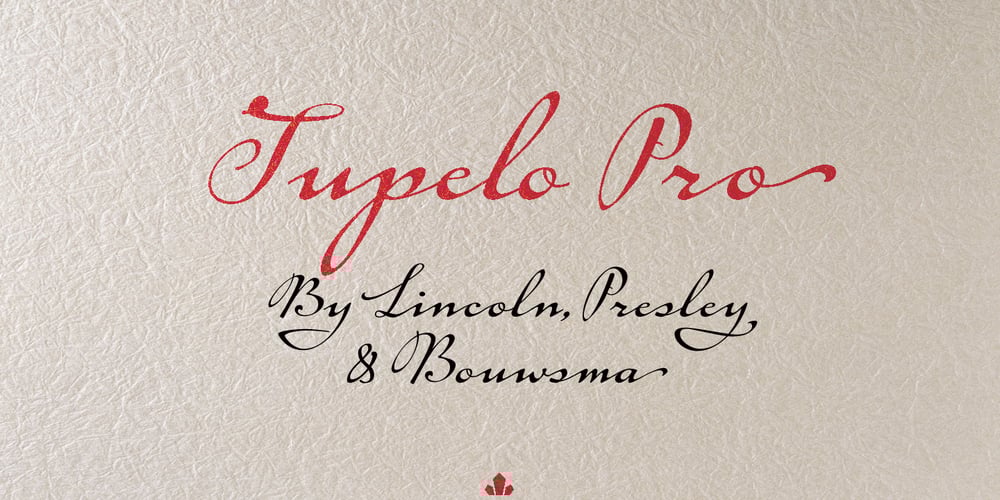
Tupelo Font Family was designed by Philip Bouwsma and published by Canada Type. Tupelo contains 3 styles and family package options. Philip Bouwsma’s offbeat mind, always working in mysterious ways, brings us one of the unlikeliest syntheses of historical influences in a perfectly fluid, organic, and highly expressive connected script. Tupelo takes its inspirational roots from the handwritings of two of the most influential men in world history: Elvis Presley and Abraham Lincoln. It took a little research and analysis on Bouwsma’s part to reveal that The King’s and Honest Abe’s methods of writing shared a common ancestor: a writing system they had both learned as youths during their early school years. While Tupelo’s lowercase maintains the slant, color, texture, and flourish of Elvis’s handwriting, its uppercase is the embodiment of Lincoln’s well-versed originality. This is the closest a typeface has ever come, in its timeliness and historic relevance, to making a statement about these modern days’ fusion of politics and popular culture. Tupelo comes in two main fonts, plus a set of beginning lowercase, a set of ending lowercase, and plenty of alternates and extras. The non-Pro set consists of five fonts, while Tupelo Pro combines the lot in a single font of over 840 characters, which includes programming for push-button swash caps, stylistic alternates, oldstyle figures, beginning and ending letters. Elvis and Abe would be proud!